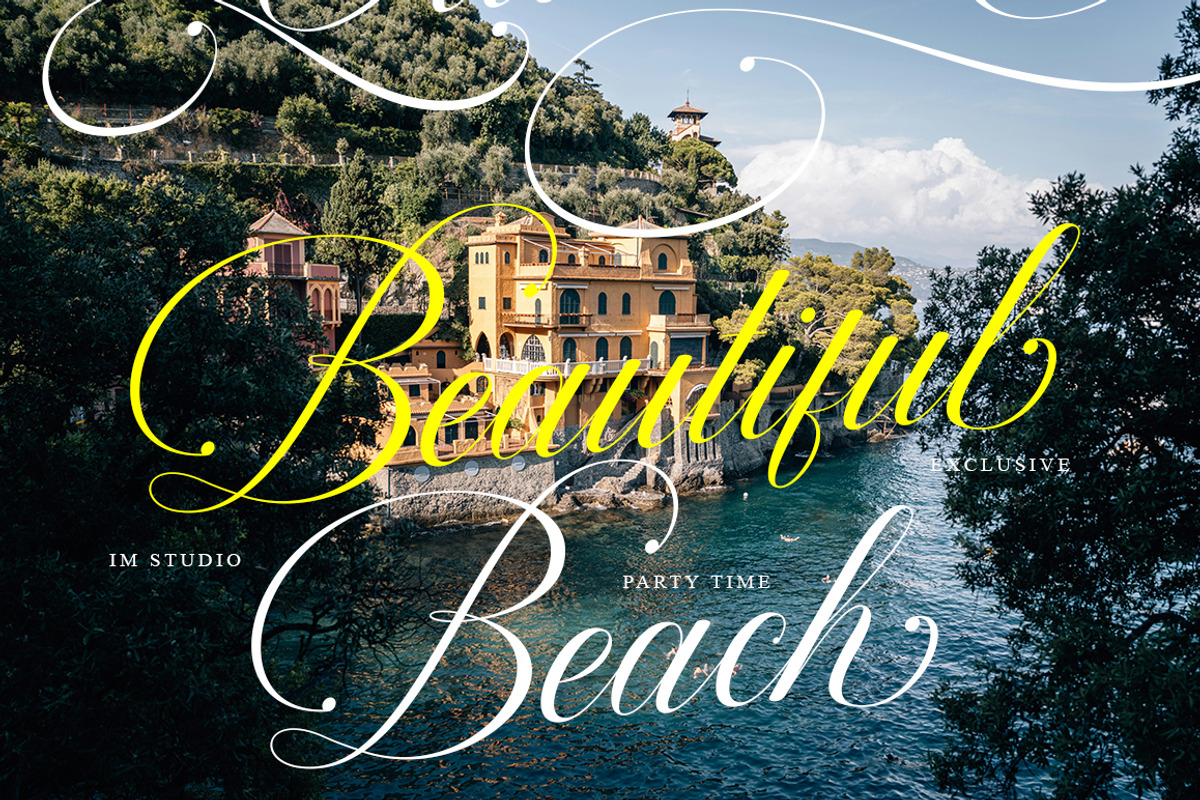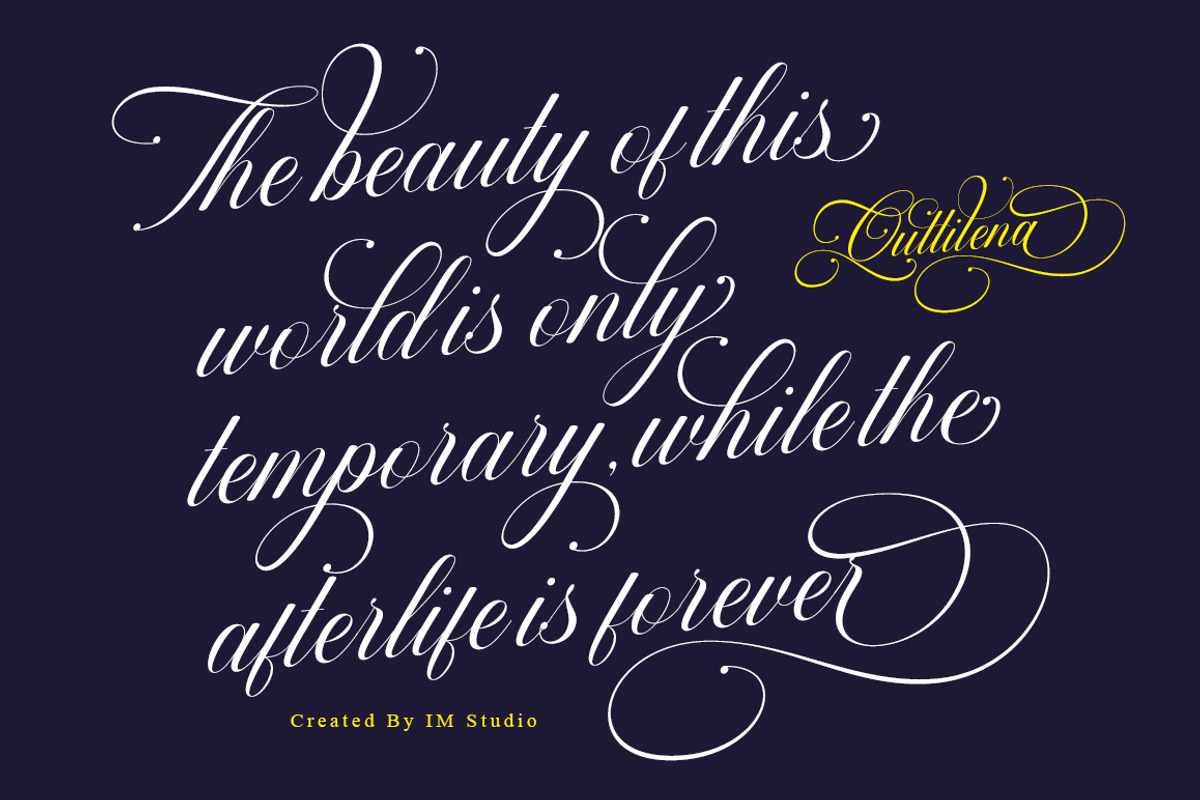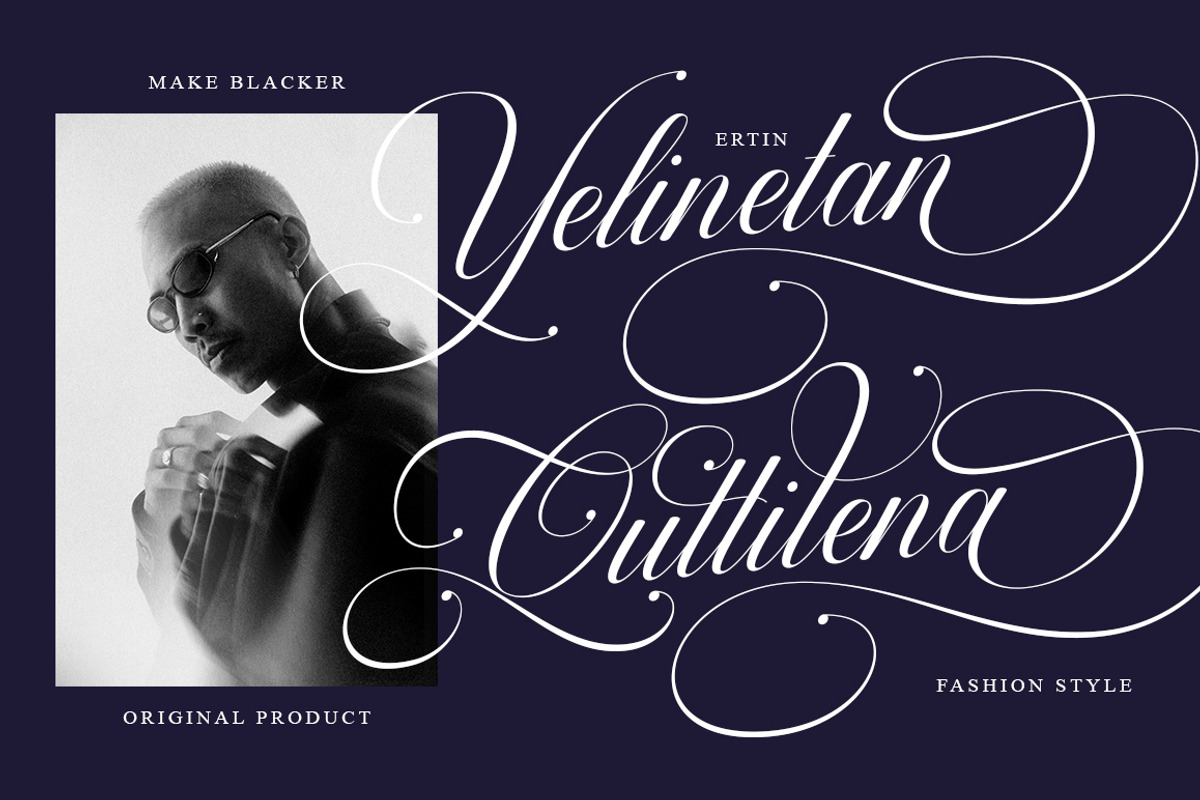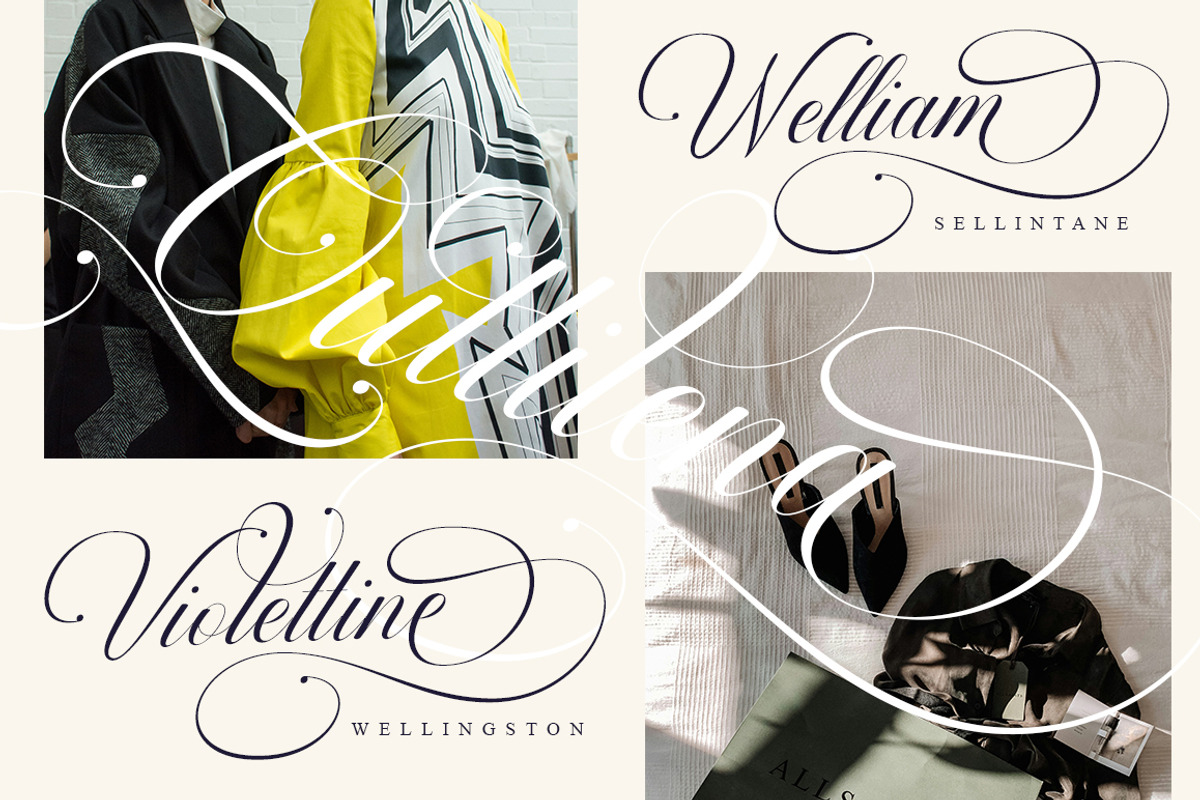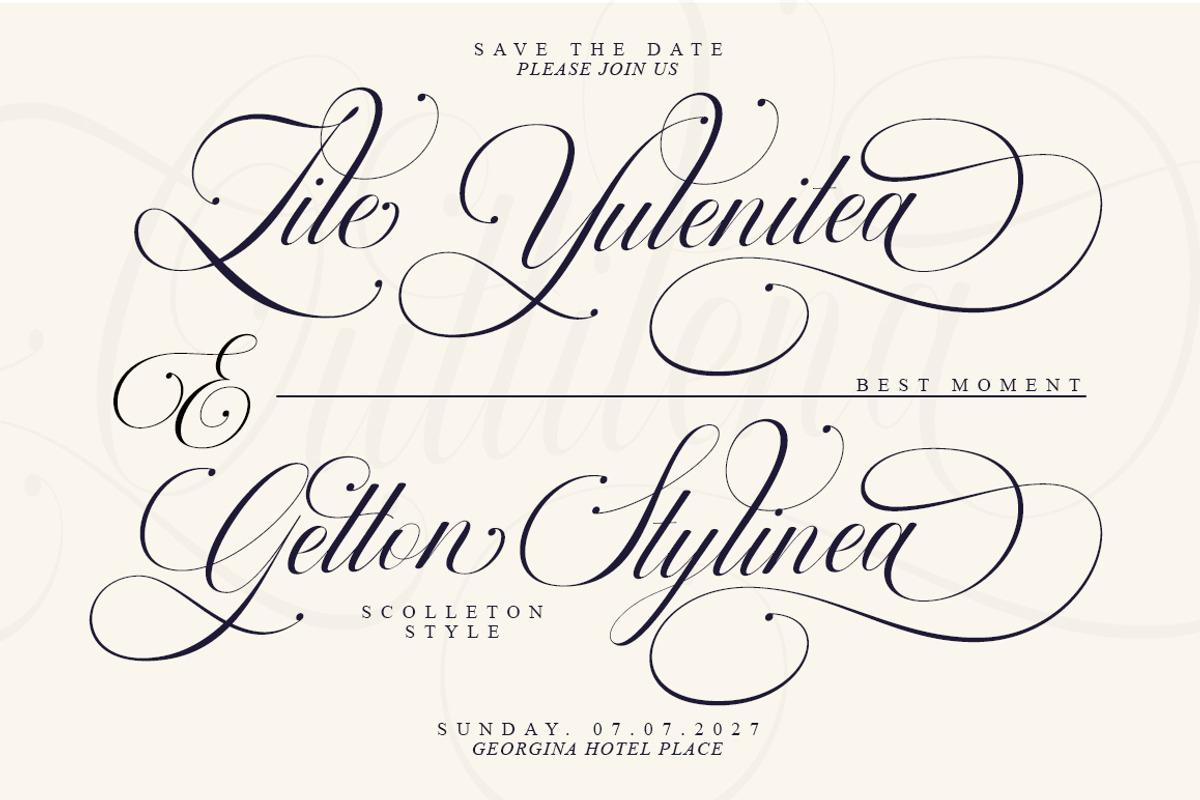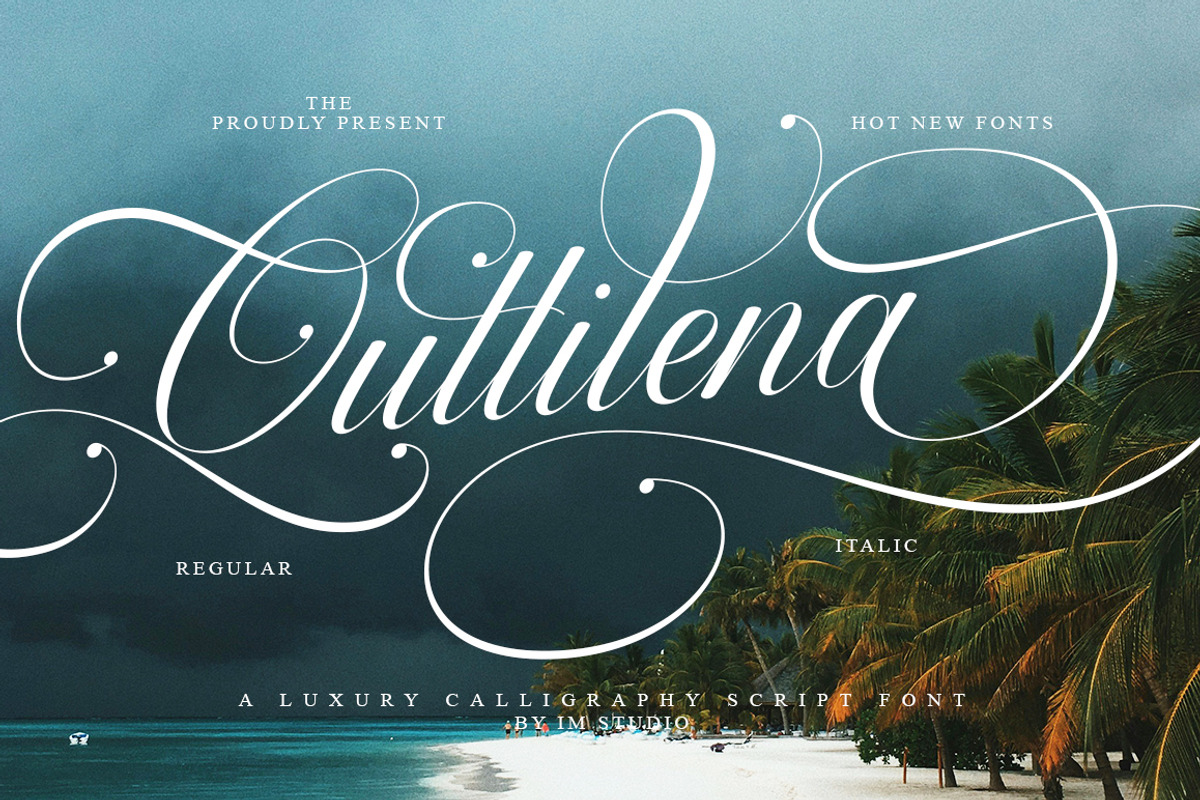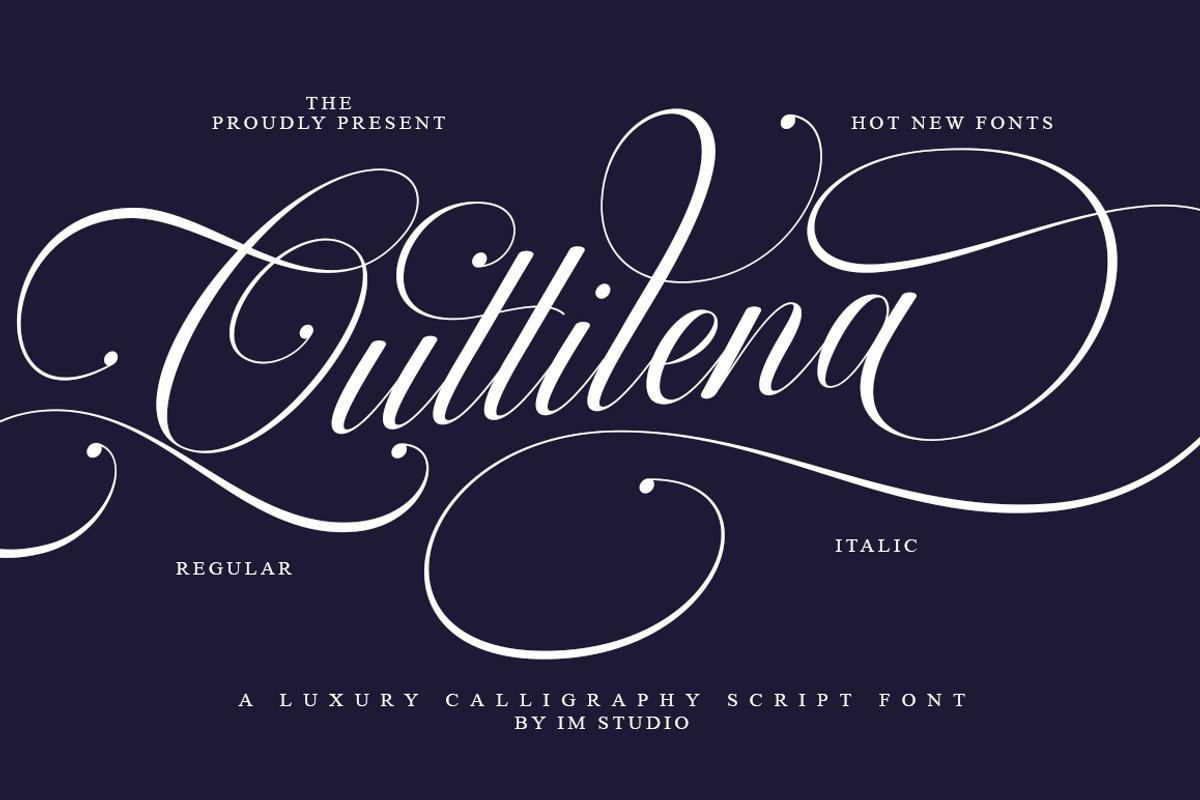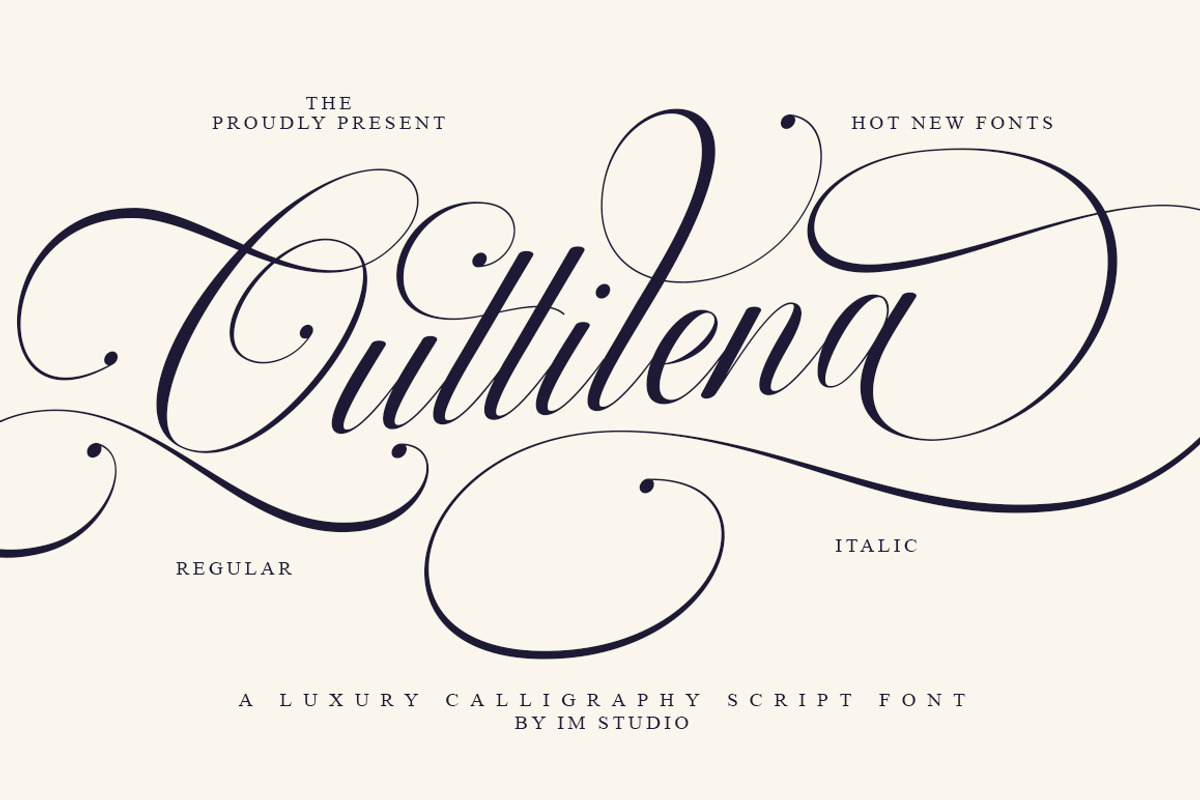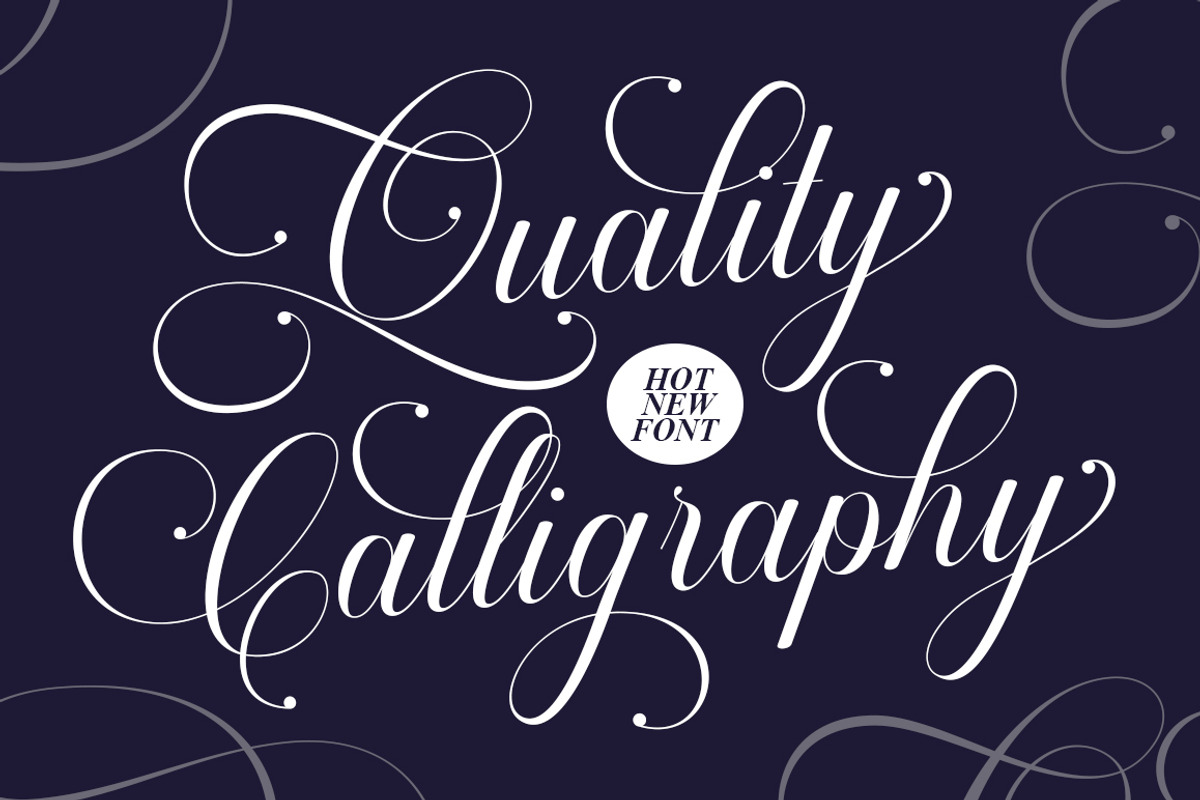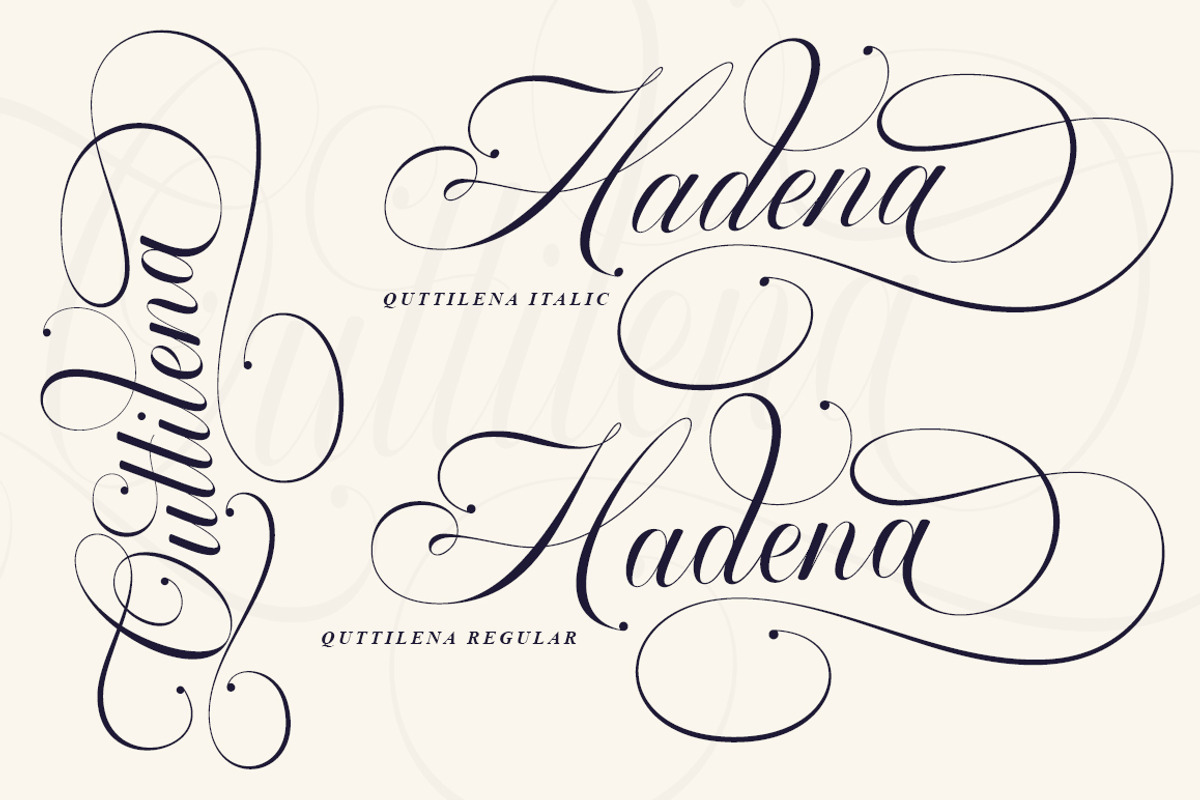
Quttilena Script
Quttilena Script – Elegant Script Typeface
Quttilena is a refined and graceful script font, combining the timeless beauty of classic copperplate calligraphy with a fresh, modern touch. Designed with meticulous detail, this typeface exudes sophistication and luxury—perfect for projects that demand both style and style.
Smooth, feminine, and highly legible, Quttilena features beautiful joins, flowing curves, and a wide selection of stylish alternates. Its uniformity makes it ideal for both formal and creative applications, such as wedding invitations, logos, branding, menus, fashion editorials, beauty product packaging, greeting cards, stationery, magazines, book covers, and more.
Bring a timeless touch to your designs with Quttilena.